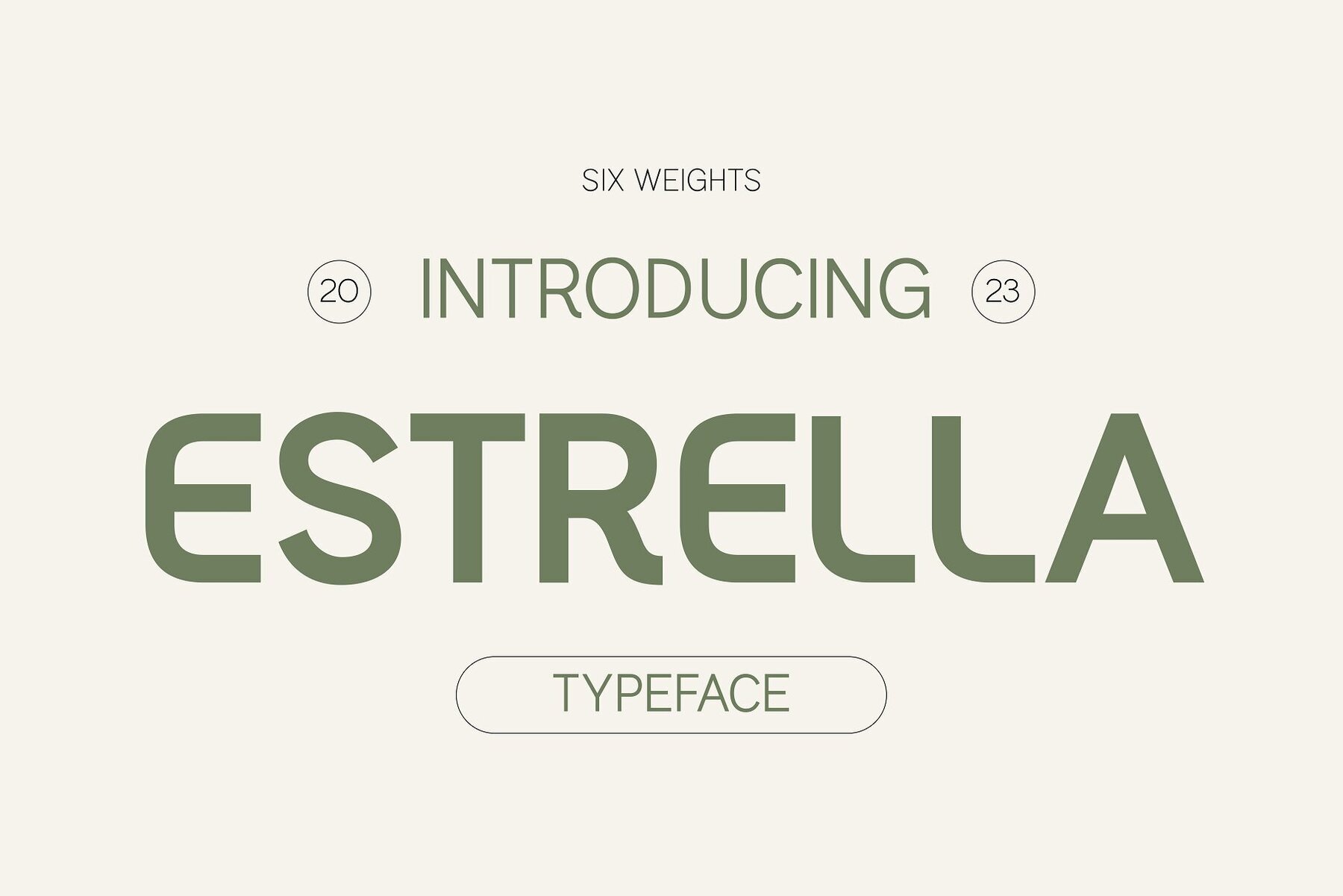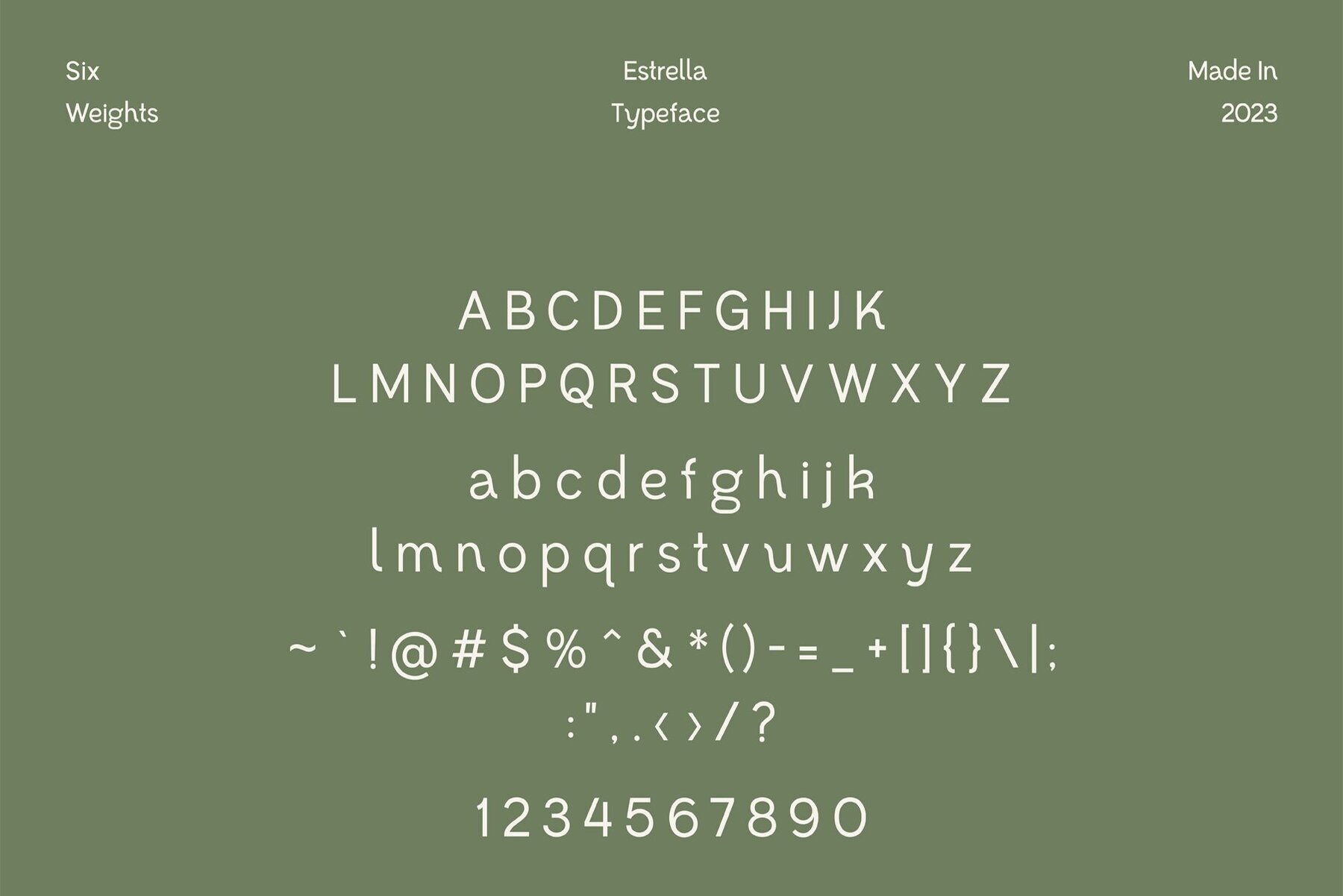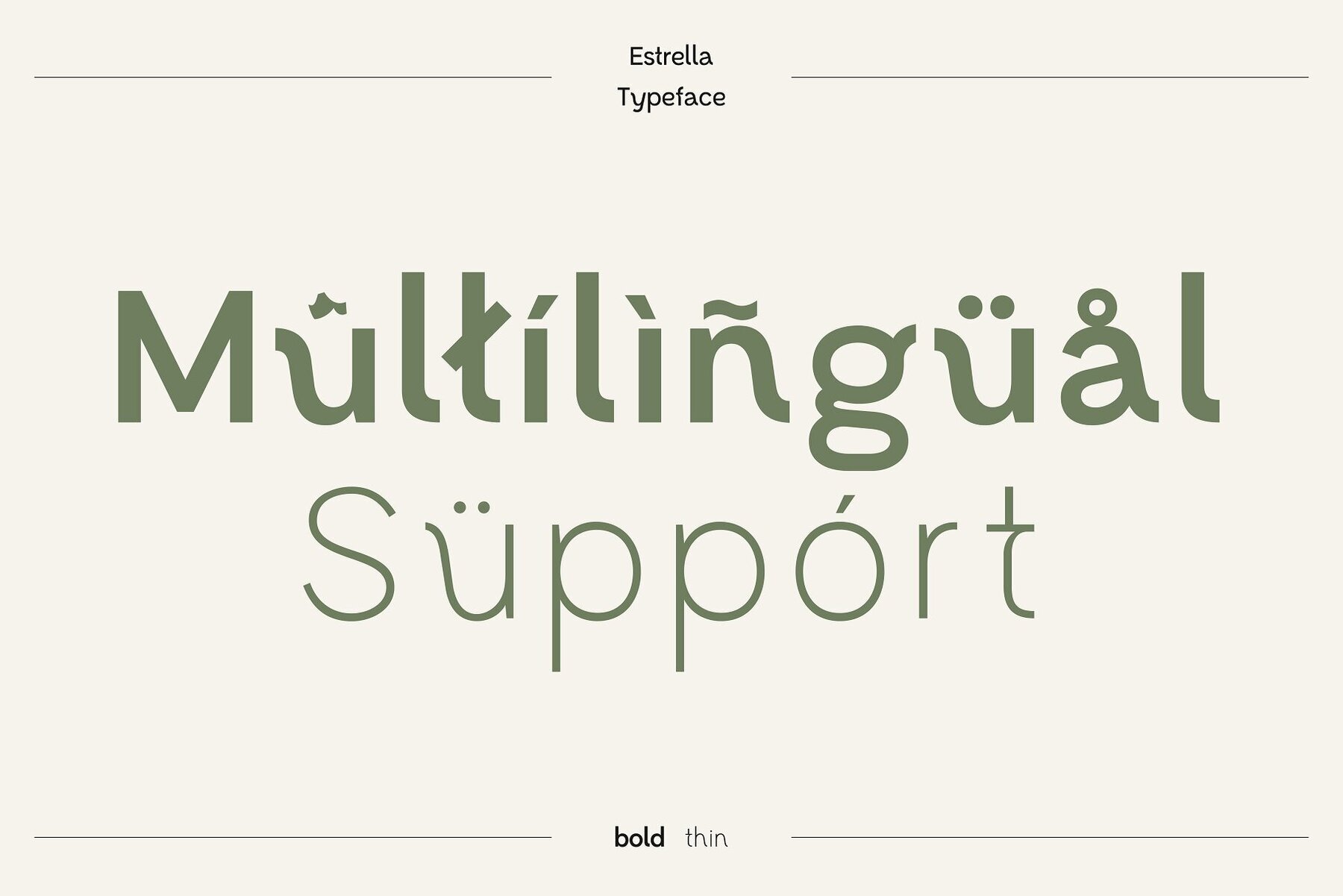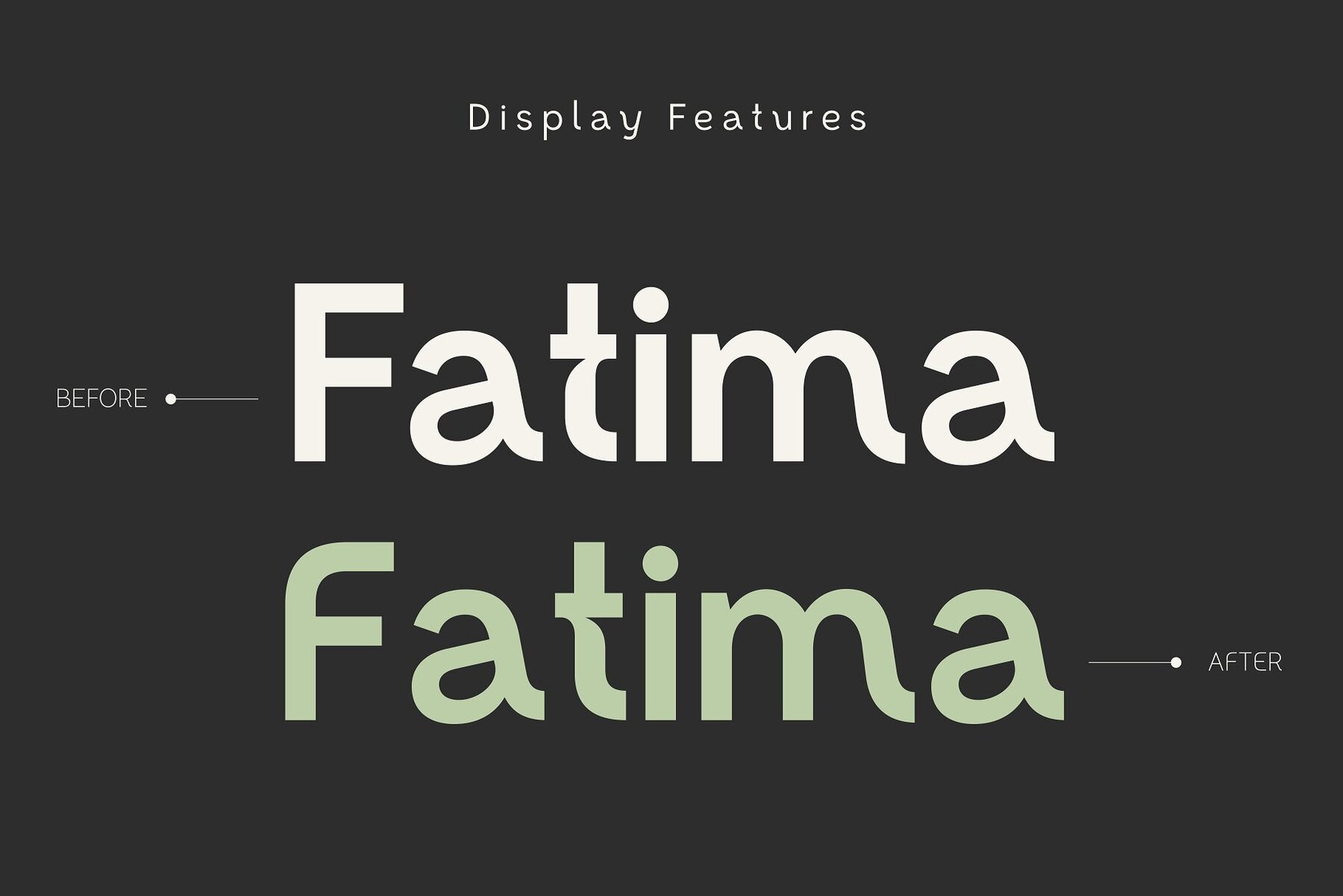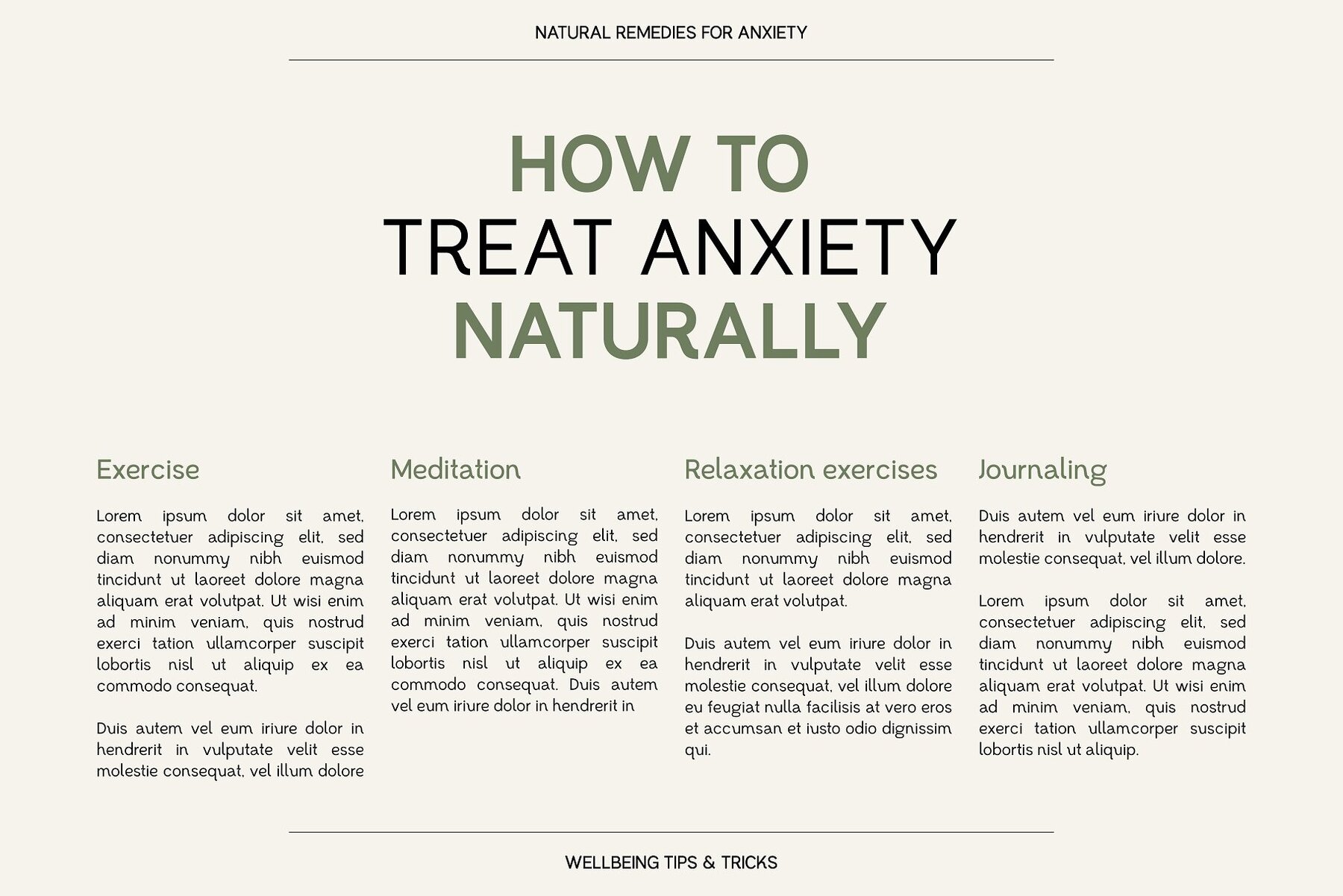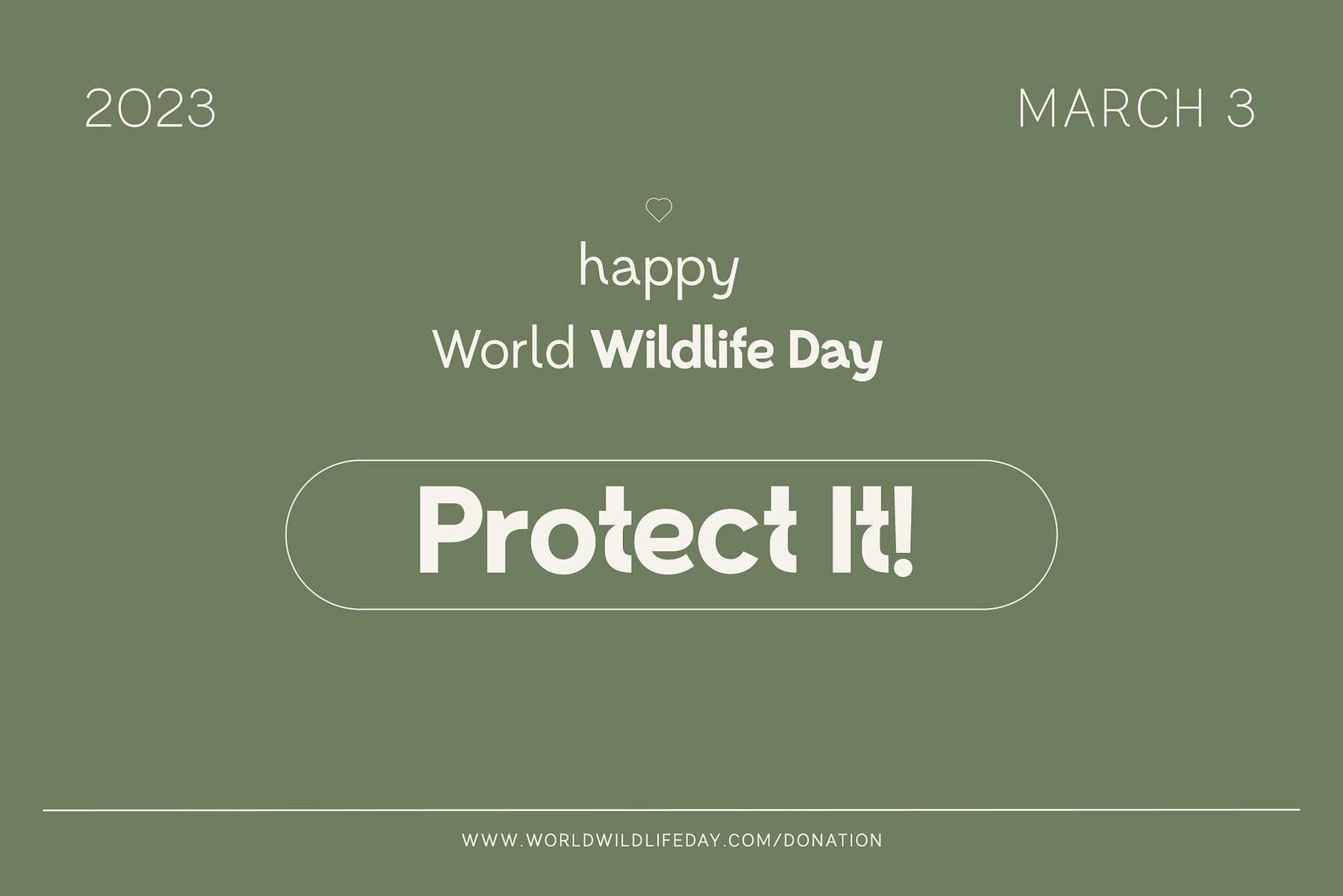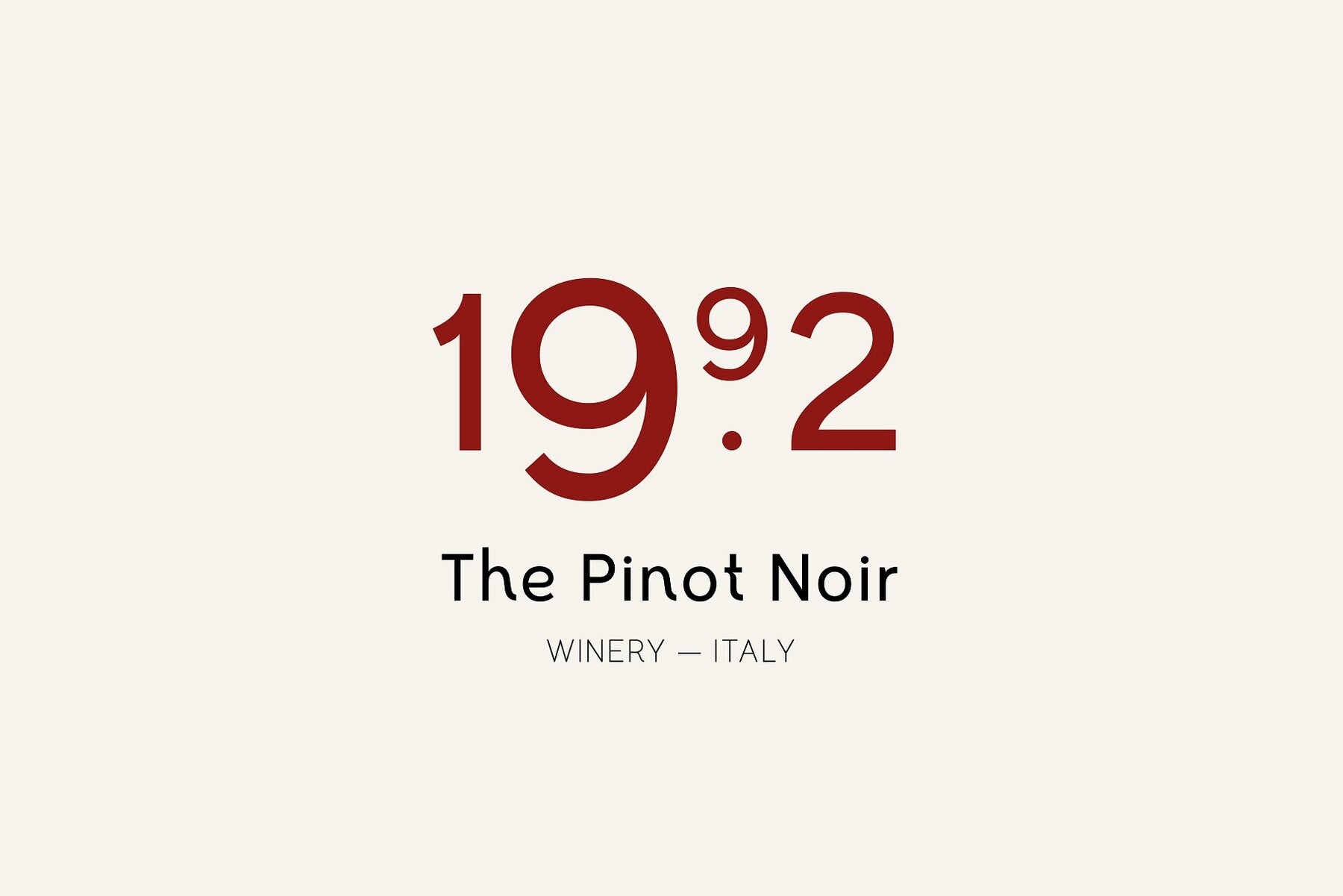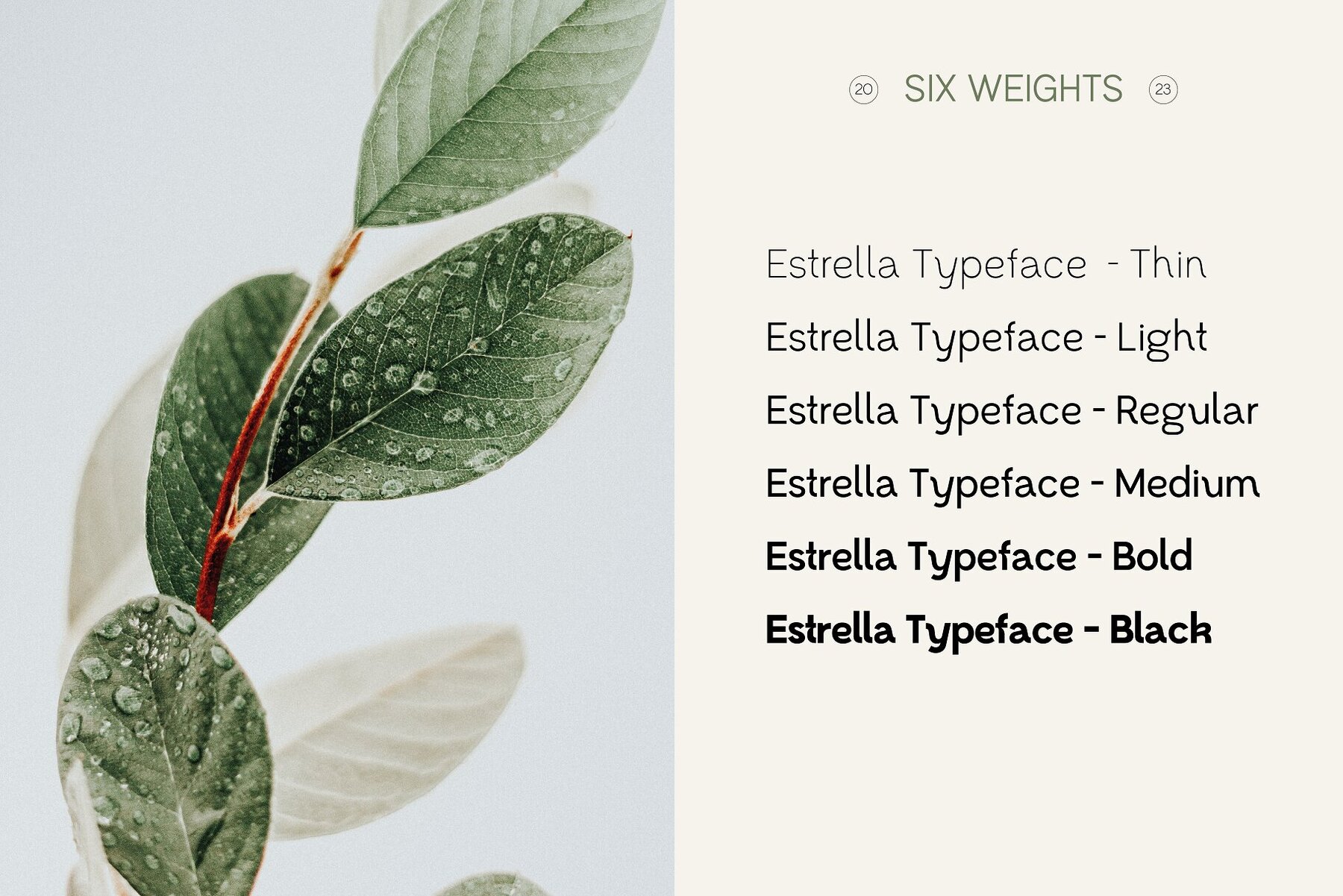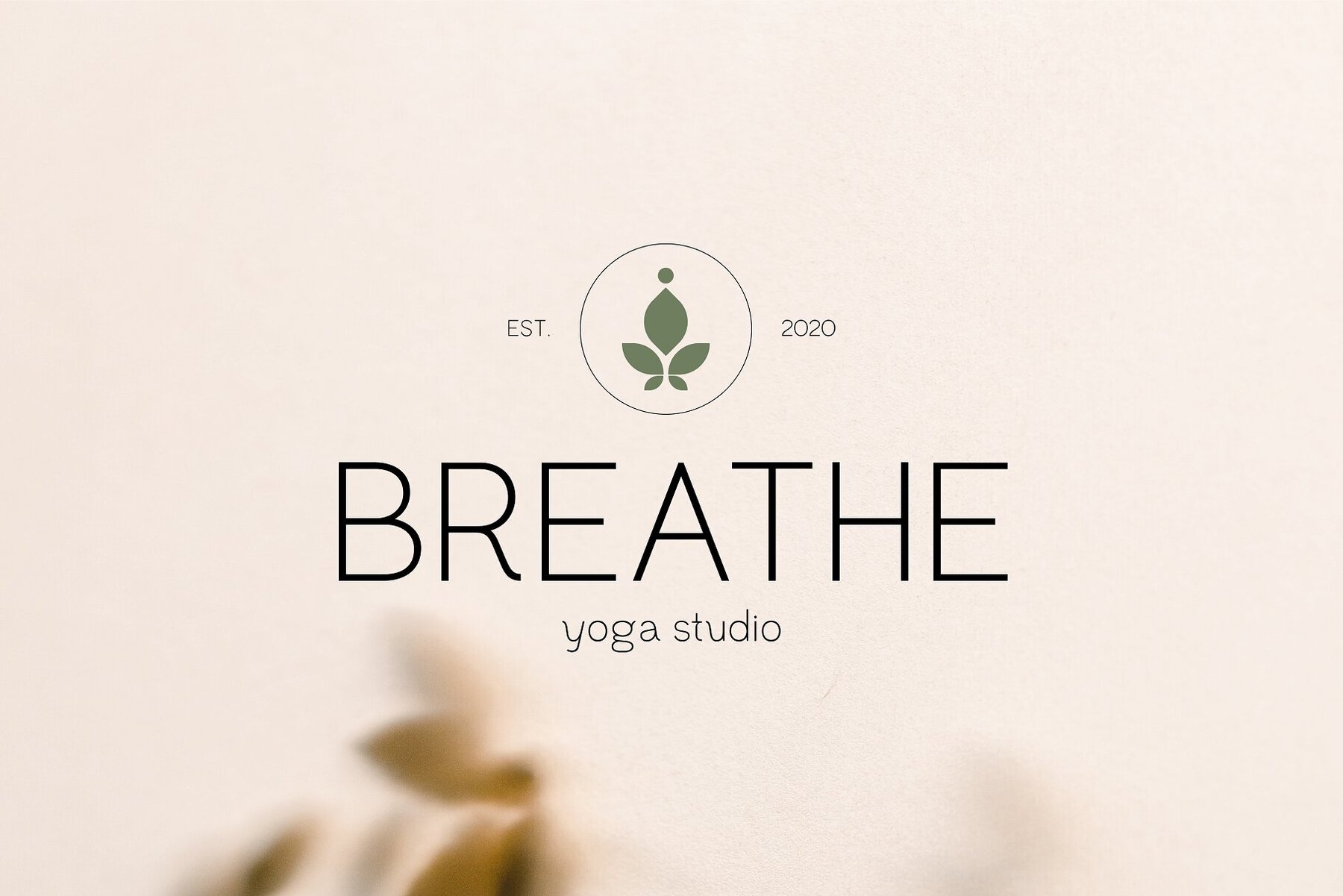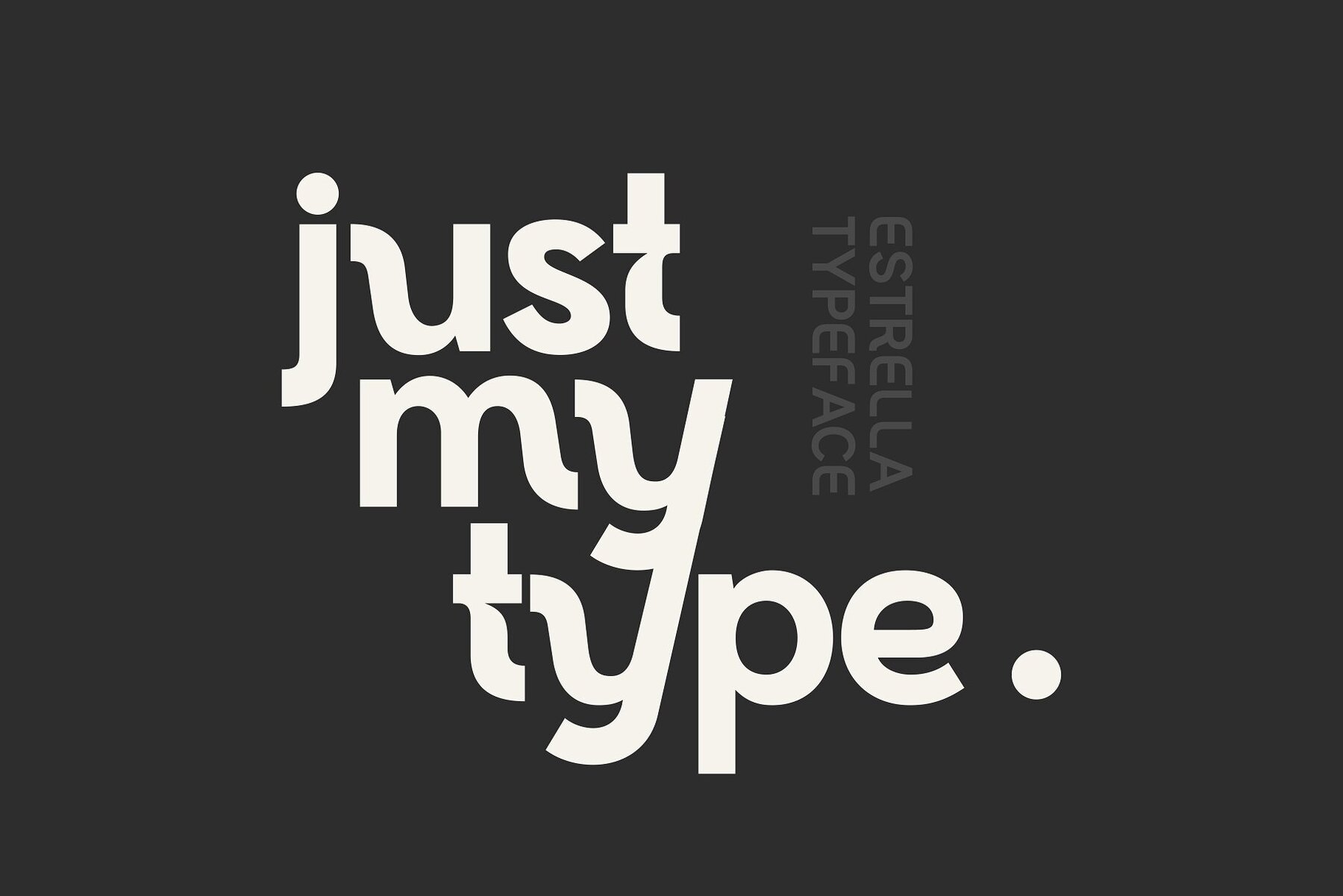
Estrella Font
Estrella is a stunning sans serif typeface that exudes modernity and sophistication. Its clean and minimal design makes it an ideal choice for designers who seek a professional and polished look. The font’s beautiful curves and straight lines add a touch of elegance to any project, while its readability ensures that it’s perfect for both headlines and body text. Estrella is a versatile font that can be used for a wide range of design projects, from logos and branding to websites and print materials. Whether you’re creating a sleek and stylish website or designing a beautiful magazine layout, Estrella is the font that will make your work stand out.